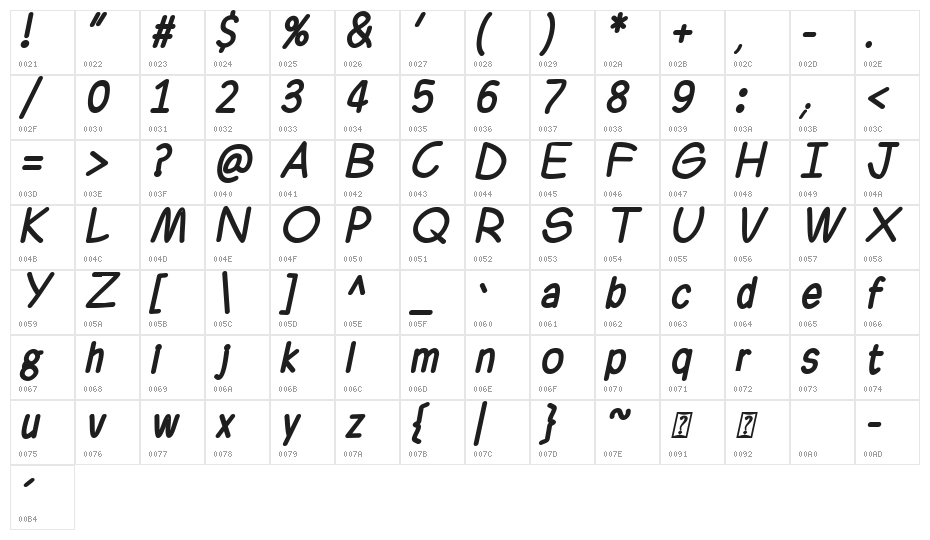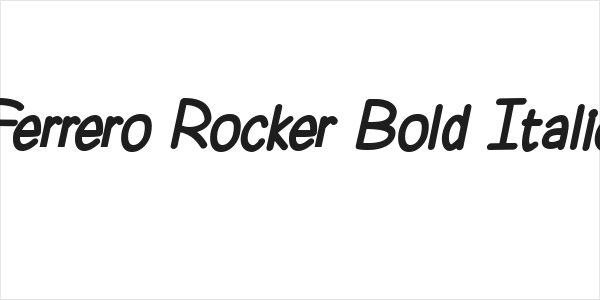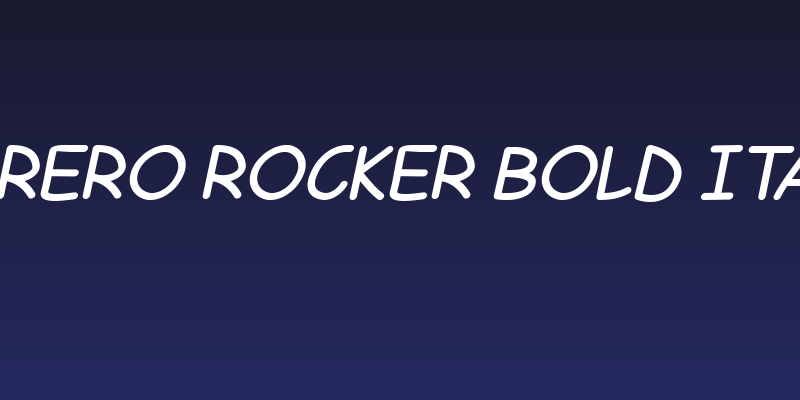
Ferrero Rocker Bold Italic Font
Ferrero Rocker Bold Italic Description
This font features a bold and italicized style, characterized by its smooth, rounded edges and dynamic slant. The uppercase letters are slightly elongated, giving a sense of movement and fluidity. The lowercase letters maintain a consistent height, contributing to a harmonious appearance. Numbers are bold and clear, ensuring readability. Special characters are well-defined, complementing the overall aesthetic. The font's design is both modern and playful, making it suitable for a variety of creative applications.
| Proposed Projects | Ideal for branding, advertising, and packaging design projects that require a modern and playful touch. |